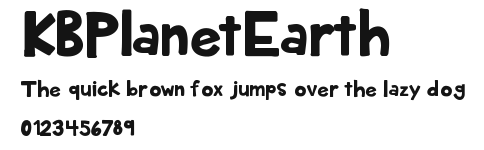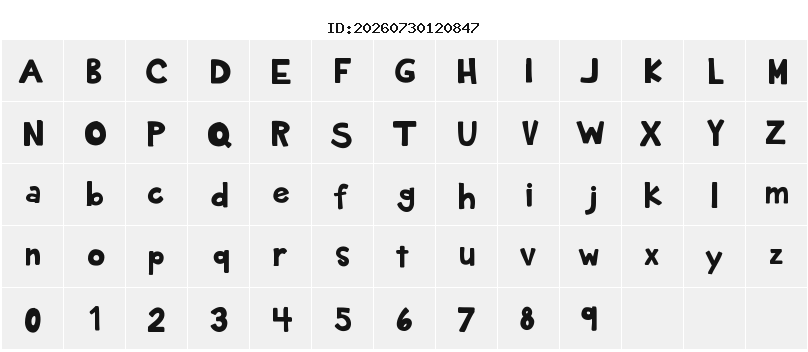
KBPlanetEarth Preview
About KBPlanetEarth.ttf
KBPlanetEarth.ttf is a modern, elegant sans-serif font designed for ultimate readability and visual harmony. Perfect for branding, headlines, web design, and print materials.